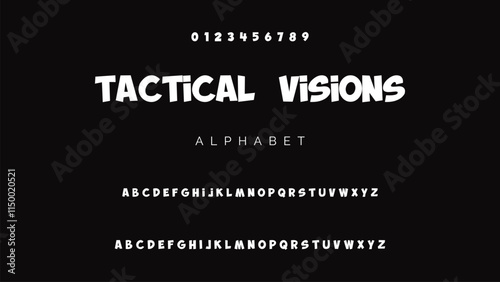
Cartoon audacious alphabet, playful uneven letters, bold geometric graffiti font for kid toy logo, youthful lettering, joyful headlines, and comic book typography. Vector typeset.